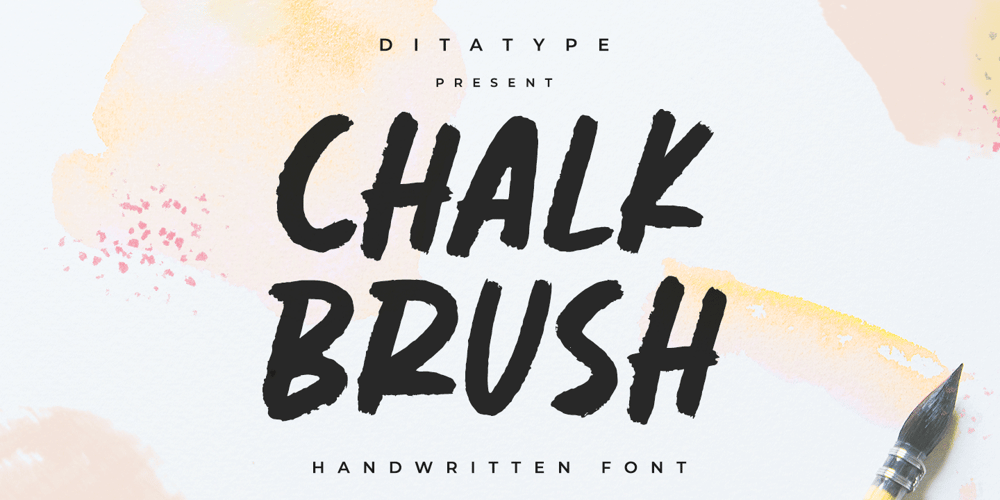
Chalk Brush Font Family was designed by Donis Miftahudin and published by Ditatype. Chalk Brush contains 1 styles and family package options. Chalk Brush is a Chalk brush font. With a playful and natural handwritten style, it brings a classy and chic typeface. Chalk Brush is best used for weddings, branding, logotype, and quotes.Includes: – Chalk Brush (OTF)Features: – PUA Encoded – Multilingual Support – Numerals and Punctuation